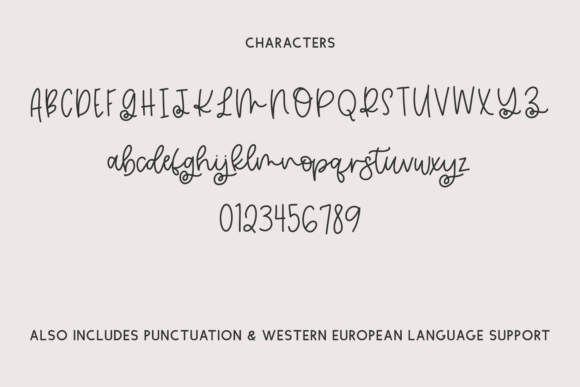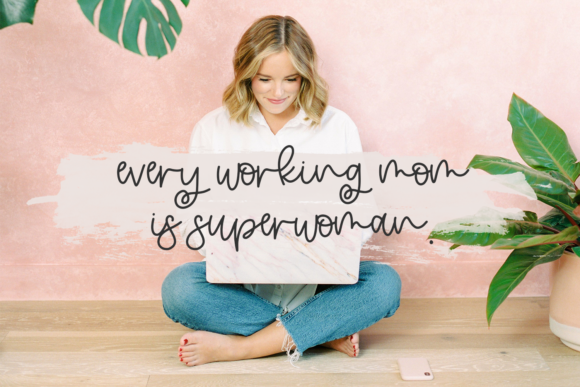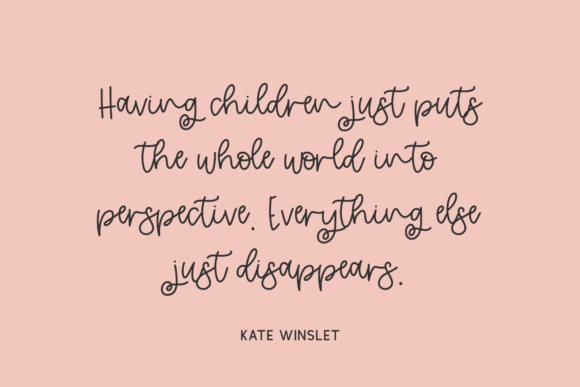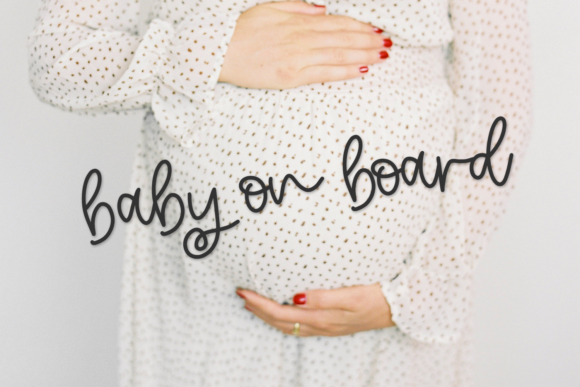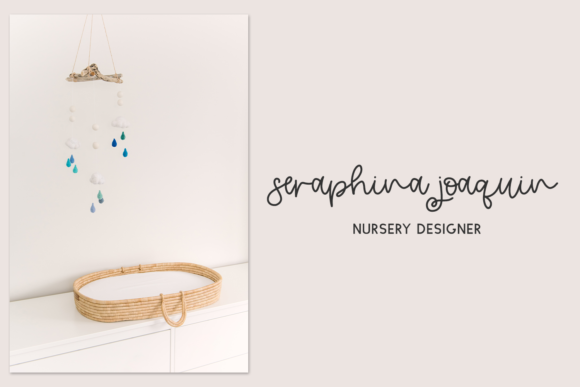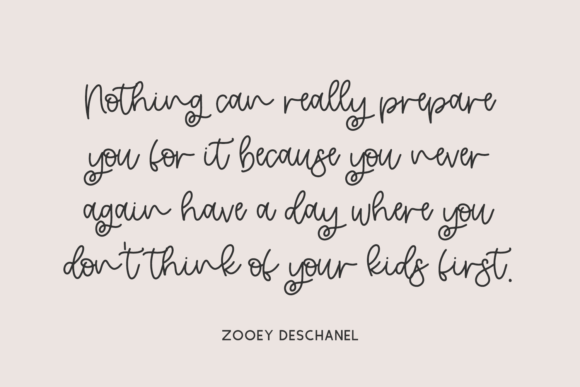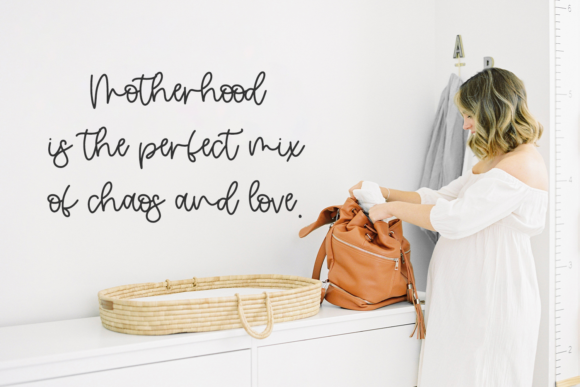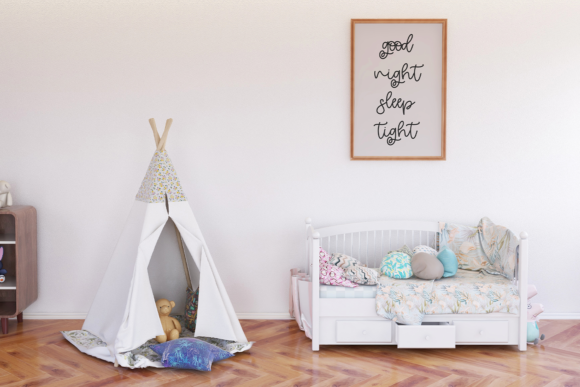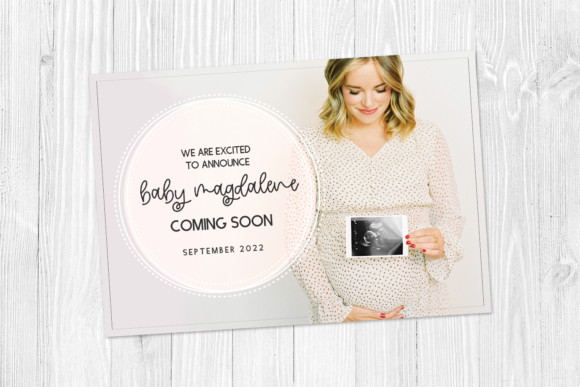
Hello Darling Script Font
About Hello Darling Script Font
Hello Darling Script is a delicate and elegant handwritten font. Its distinct and well balanced letters make this font a masterpiece. Fall in love with its incredibly versatile style and use it to create spectacular designs!